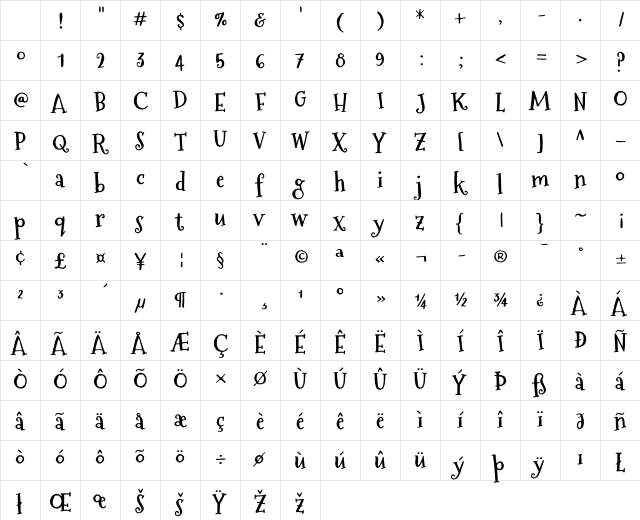
Complete Mountains of Christmas Bold glyph index. Displaying only characters natively supported by Mountains of Christmas Bold font.
Mountains of Christmas is a composed and adaptable typeface that performs quietly and consistently across a wide range of design contexts. Its bold stroke weight gives it real presence on the page.